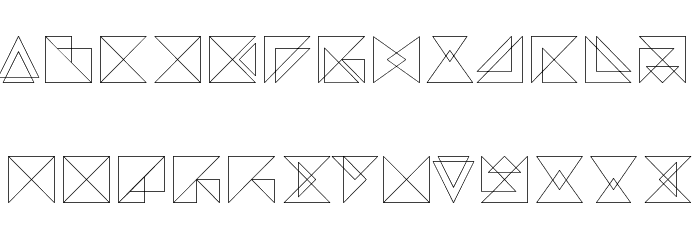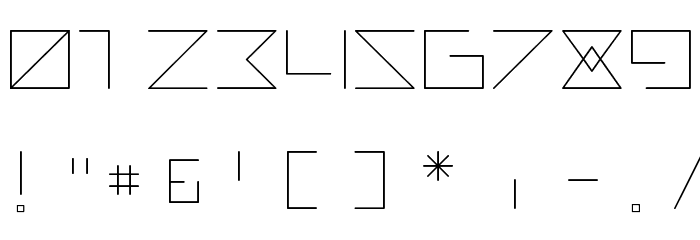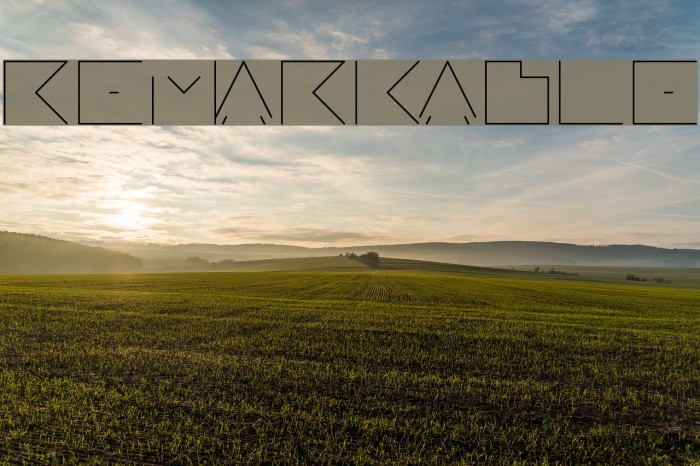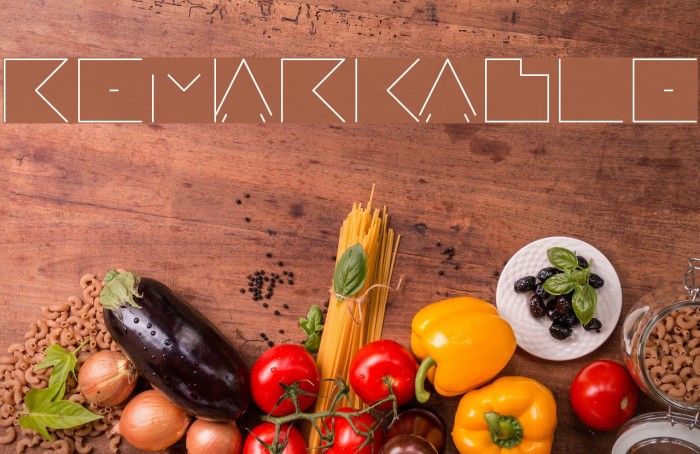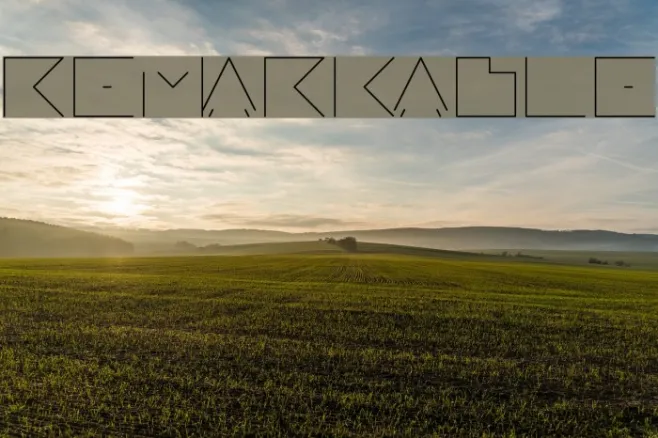
REMARKABLE Font
This font features a highly geometric and abstract design, characterized by its use of straight lines and sharp angles to form each character. The uppercase letters are constructed with minimalistic lines, creating a futuristic and technical appearance. The lowercase letters follow a similar pattern, maintaining the geometric theme with intricate line work that forms each character. Numbers and special characters are also designed with the same angular and linear style, ensuring a cohesive look across all elements. The font's unique structure makes it stand out, offering a modern and avant-garde aesthetic that is both striking and unconventional.
A geometric and abstract font with sharp angles and straight lines, offering a futuristic look.
- Proposed Projects: Ideal for modern branding, tech-related projects, futuristic posters, and digital artwork.